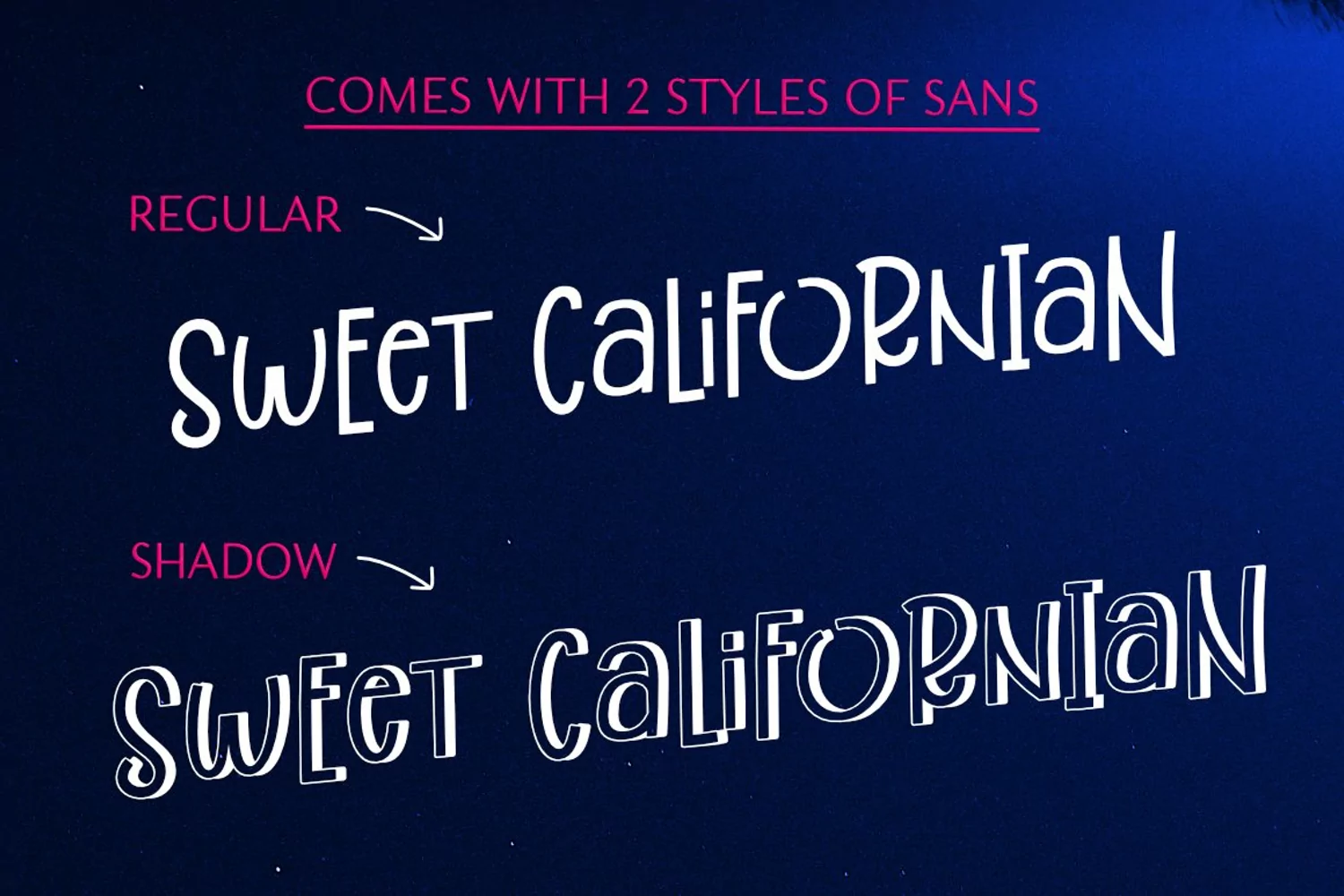
Best Friend Forever is a casual and playful font Trio. It's fun to use for various projects: quotes, headlines, logos, brandings, and adverts.
1. Best Friend Forever Script
2. Best Friend Forever Sans Regular
3. Best Friend Forever Sans Shadow